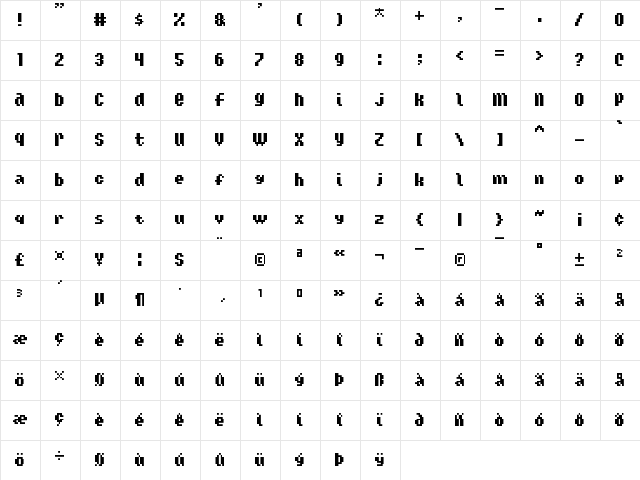
Tiny Islanders Regular
Design Context for Tiny Islanders Typeface
Tiny Islanders takes a measured approach to typography — its balanced proportions and neutral character make it a reliable workhorse for both digital and print work.